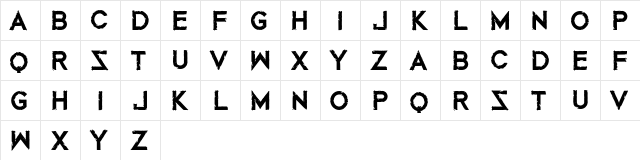
Mustafar Reloaded Regular Font Preview
Mustafar Reloaded Regular
Mustafar Reloaded Regular Font Details
| Foundry | Font Monger & Chris Vile Fonts |
| Designer | Chris Vile |
Design Context for Mustafar Reloaded Typeface
Mustafar Reloaded takes a measured approach to typography — its balanced proportions and neutral character make it a reliable workhorse for both digital and print work.